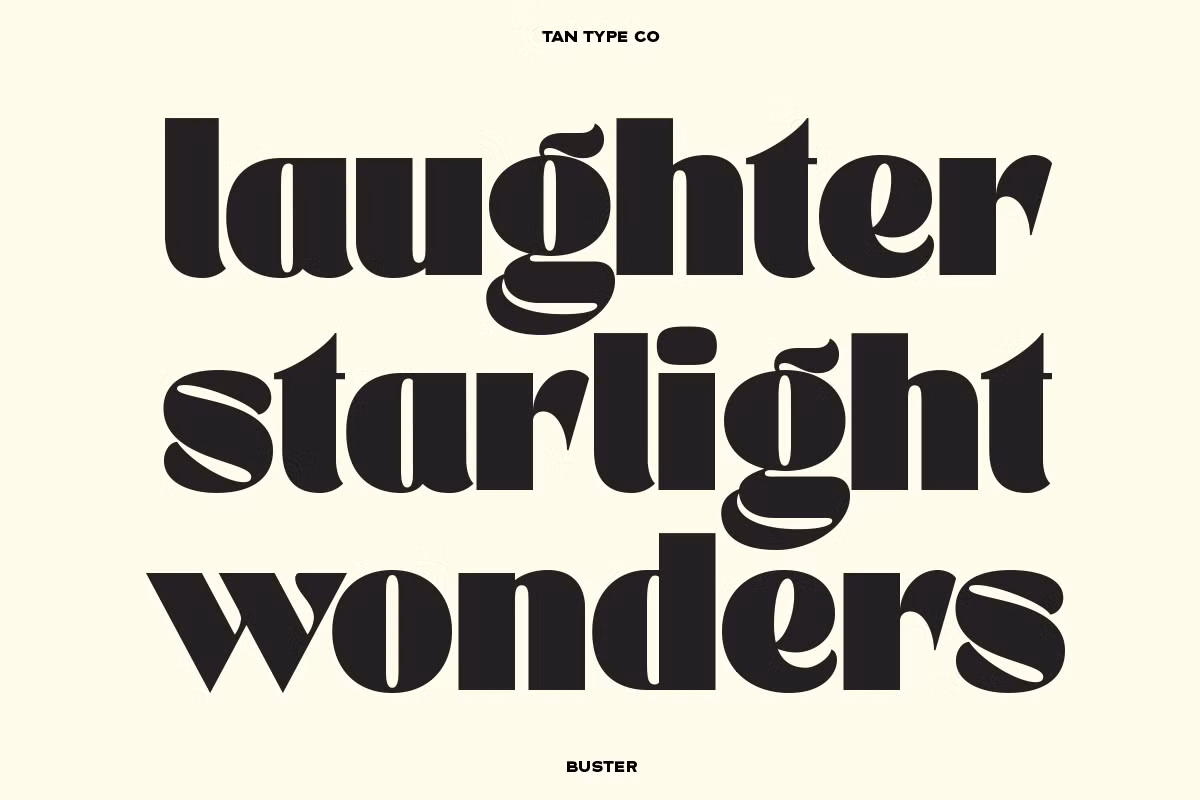
TAN Buster specimen and verified specs
- Styles: 1 (Bold)
- Glyphs: 343
- Language support: Basic Latin (English), Western European, Central & Eastern European
- OpenType features: kerning, fractions
- Designer: Novia Jonatan (TanType Co.)
Reading the letterforms
The listing describes TAN Buster as a retro-inspired display typeface with a fun look, and says it takes cues from 1970s and 80s school lettering. The specimen and character set on this page, rendered from the licensed font files, show a black-weight face built on contrast. Most of each letter is solid ink, and the detail is carved out as thin slivers and hairlines.
The capitals show this most clearly. The A is a heavy right leg with a hairline left side that hooks over at the top. The middle arm of the E shrinks to a thin wedge, and the M and N rely on hairline diagonals between fat stems. The J and the Q both drop below the baseline, one in a hook and one in a sweeping tail, and the G curls into its own counter.
The lowercase is calmer. Look for the double-storey g, whose lower loop swings out to the left, and the j that ends in a curl. In the figures, the 4 has a hairline diagonal and the 7’s stem bends like a bow.
One detail to check: in our character-set render the # sign is small and drawn in thin lines, out of step with the heavy letters around it. Test it before you set a hashtag in a large headline.
Hairlines this thin need size. TAN Buster looks its best at headline scale; in small text the narrow cuts begin to fill in.
- Styles: one, labelled Bold in the font files.
- Glyphs: 343, covering capitals, lowercase, figures, punctuation and accented letters.
- Version: 1.000, a static font rather than a variable one.
- Credits: the font files name Novia Jonatan as designer; the publisher is TanType Co.
Accents, fractions and other technical details
The character set covers Basic Latin, Western European and Central and Eastern European letters. Accented text in languages such as Spanish, French, German, Portuguese, Polish, Czech or Hungarian should set without gaps.
Two OpenType features are built in:
- Kerning adjusts the gap between specific letter pairs, such as T followed by a, so the spacing looks even. It works automatically in nearly every app, including Canva, Word and the Adobe programs.
- Fractions turn 1/2 or 3/4 into a single stacked fraction. You switch this on in apps with OpenType controls, for example the OpenType panel in Illustrator and InDesign or the Typography panel in Affinity. Canva and Cricut Design Space don’t offer it.
There are no stylistic alternates, swashes or ligatures, and nothing sits in the Private Use Area. For Canva and Cricut users that means no hidden extras: every letter is reachable by typing.
Where it earns its place, and what to set beside it
The listing suggests mastheads, logos, event promotions and social media graphics. The letter shapes back that up, and they also suit anything with a sweet or nostalgic tone: bakery and ice-cream branding, candle or soap labels, record and cassette covers, retro menu headings. Keep it to a word or a short line. A full paragraph in TAN Buster gets heavy fast.
Partners should stay quiet. Three free Google Fonts that work:
- Work Sans for body copy and small print, plain enough not to argue with the headline.
Who is behind TAN Buster?
Which free font looks most like TAN Buster?
Shrikhand comes closest in mood, though it is slanted and has far less contrast.